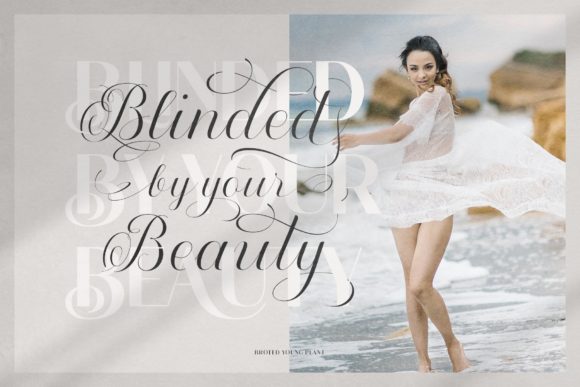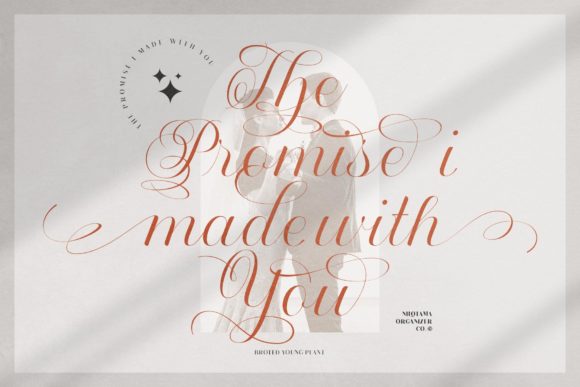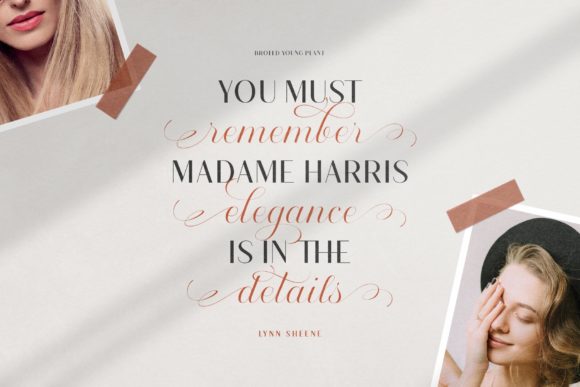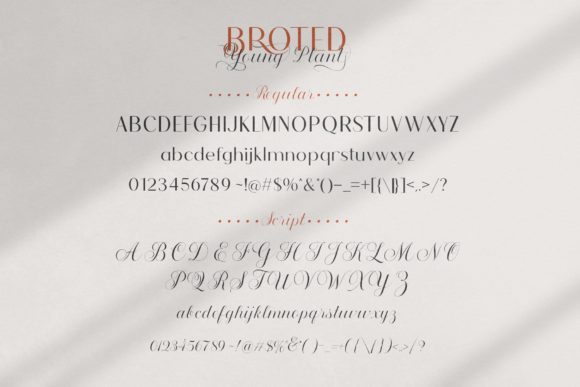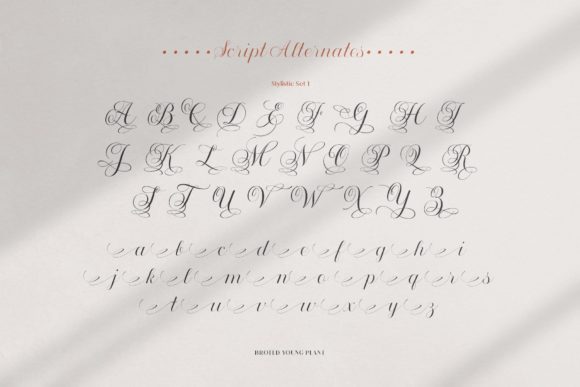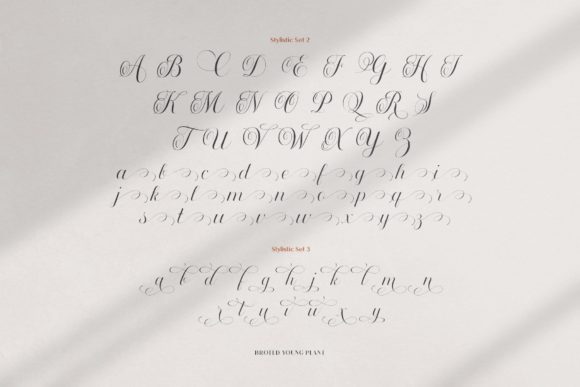
Discover the Perfect Pair: Broted Young Plant Font
As a designer, have you ever been working on a project and suddenly felt like something was missing? You know, that spark that takes your design from meh to mesmerizing? For me, it’s often the perfect font that sets the tone for the entire piece. And that’s exactly what the Broted Young Plant Font does – it adds a chic and cheery touch that’s hard to resist.
Broted Young Plant Font is a beautiful duo of fonts designed to complement each other perfectly. Whether you’re using them together or apart, these fonts are ideal for adding a playful and sophisticated vibe to your crafts. With its PUA encoding, you’ll have access to all the glyphs and swashes you need to create stunning designs. As a designer, you’ll love the flexibility and versatility that Broted Young Plant Font offers, making it a valuable addition to your font collection.
Broted Young Plant Font Key Features
- Font Family: Broted Young Plant
- Unique Characteristic: Custom-designed illustrations for plants and flowers, adding a touch of whimsy to text
Broted Young Plant Font Review
I’ve had the chance to work with the Broted Young Plant Font and I must say it’s a unique addition to any design project. ✨ Here are some things that work well:
- It’s a perfect fit for projects that need a playful, whimsical touch. The curly, hand-drawn feel is really charming.
- The font is highly customizable, allowing you to adjust the spacing, size, and even the line art to fit your needs.
- The font is available in a variety of weights, making it easy to create a cohesive look across your project.
- ⚠️ The font may not be the best choice for projects that require a more formal or professional tone.
- ⚠️ The font can be a bit overwhelming if used in large quantities or at too large a size.
Overall, I think the Broted Young Plant Font is a great addition to any designer’s toolkit. While it may not be suitable for every project, it’s perfect for those that need a touch of whimsy and personality.
For optimal results, use the Broted Young Plant Font in conjunction with a clean and simple design aesthetic. Experiment with different font sizes and styles to create visual interest.
The Broted Young Plant Font is ideal for use in designs related to nature, wellness, and sustainability. It’s also a great choice for food and beverage branding, as well as for use in educational materials.